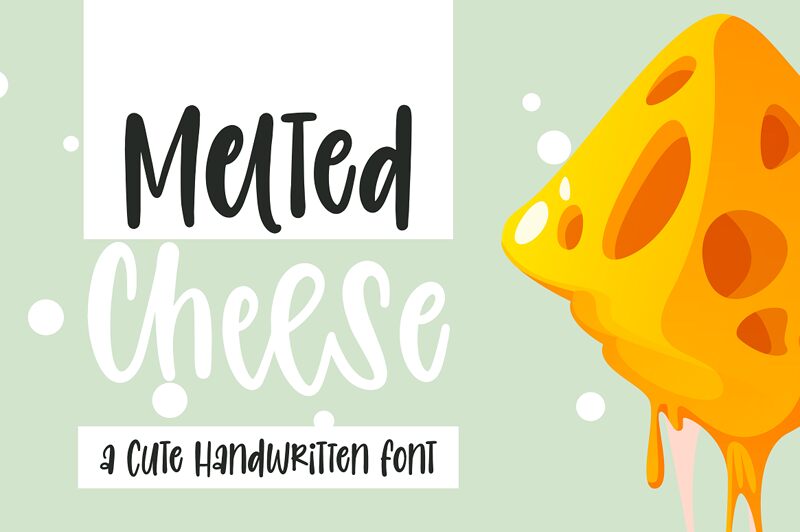
Melted Cheese
Introducing Melted Cheese, a cute handwritten font from designer Ghazi Humam Fauzan. With its light weight and condensed width, Melted Cheese is perfect for adding a unique flair to your creative projects. Use it for crafting eye-catching logos, memorable invitations, or for adding a personal touch to your scrapbooking layouts!